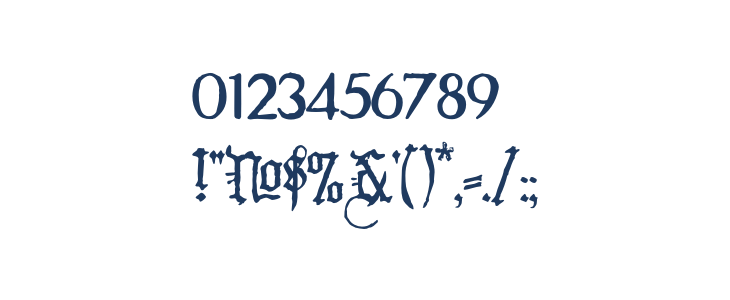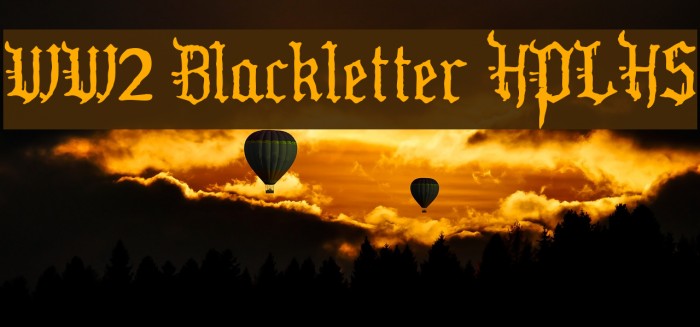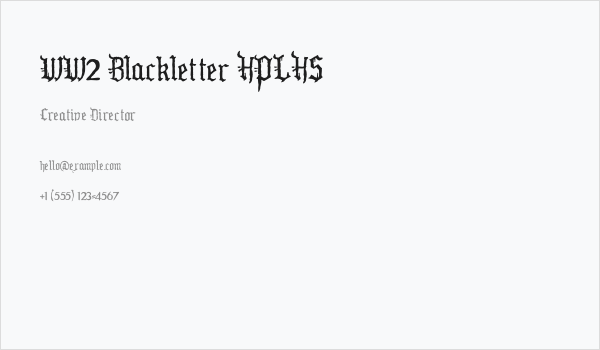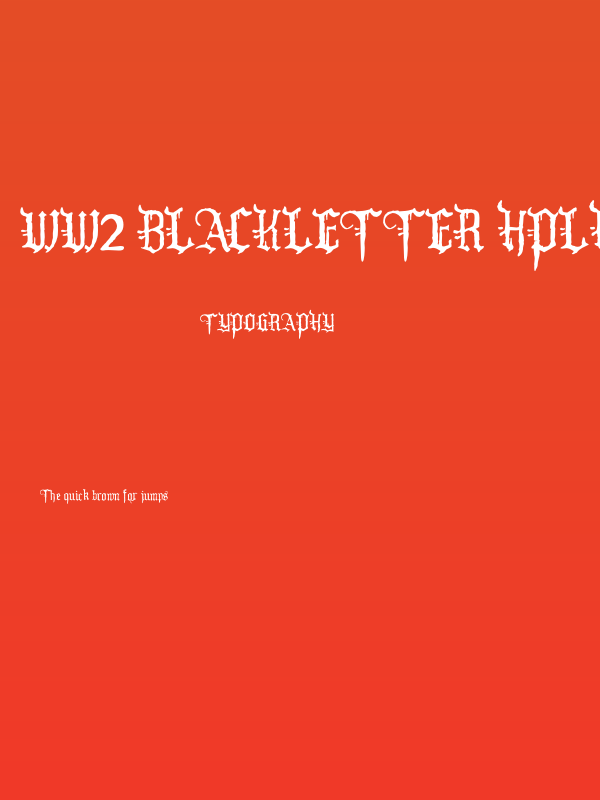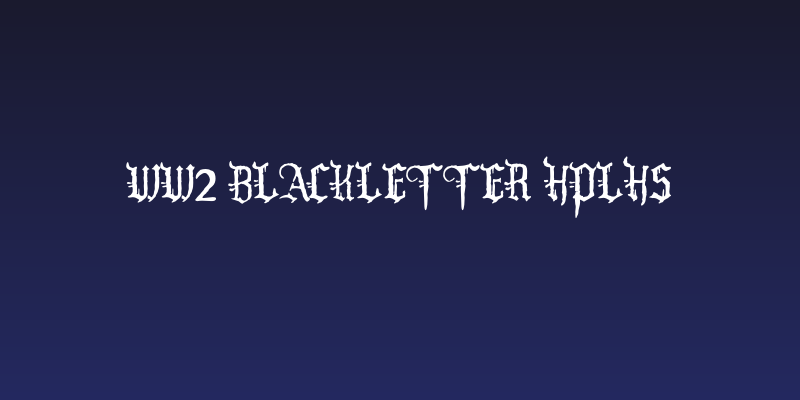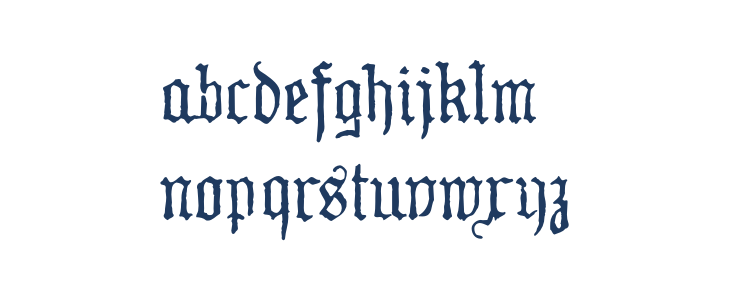
WW2 Blackletter HPLHS Font
WW2 Blackletter HPLHS Description
This font embodies the traditional Blackletter style, characterized by its ornate and intricate letterforms. The uppercase letters feature sharp, angular lines with decorative flourishes, while the lowercase letters maintain a similar complexity with a slightly more subdued appearance. The numerals are bold and consistent with the overall Gothic aesthetic. Special characters are equally elaborate, adding to the font's historical and dramatic feel. This typeface is reminiscent of medieval manuscripts and early printed books, offering a sense of antiquity and formality.
| Proposed Projects | Ideal for projects requiring a historical or Gothic touch, such as book covers, posters, or themed event invitations. |